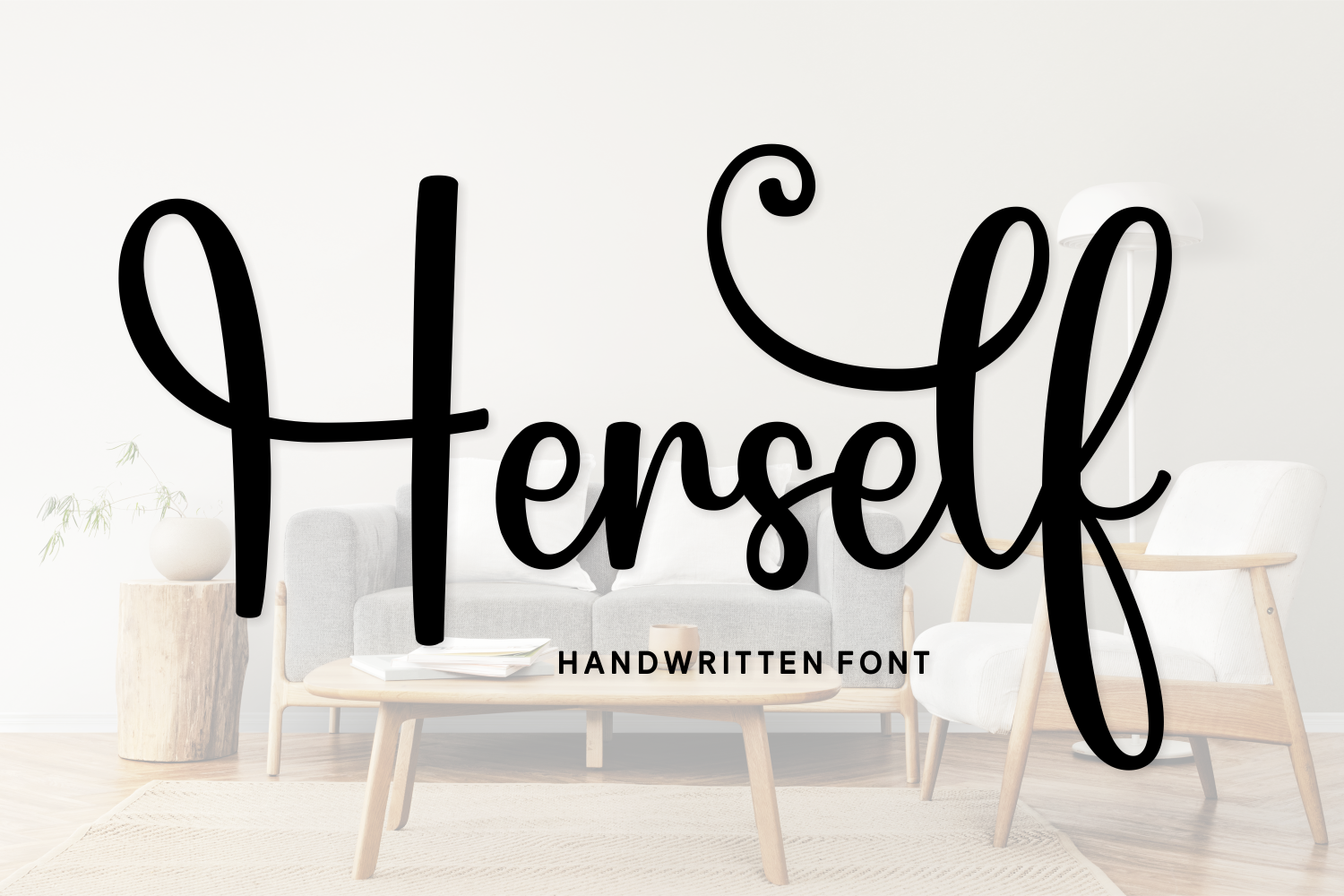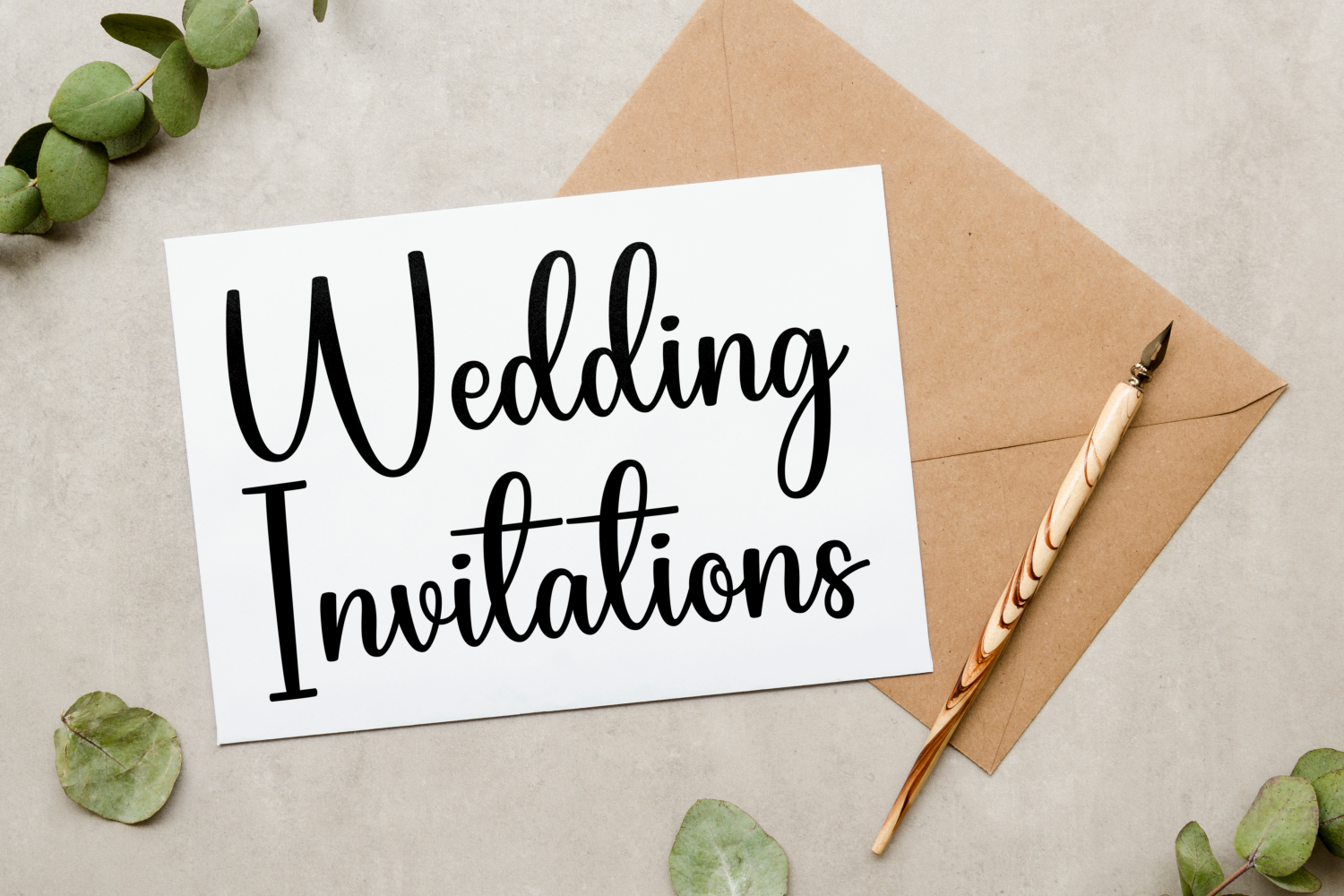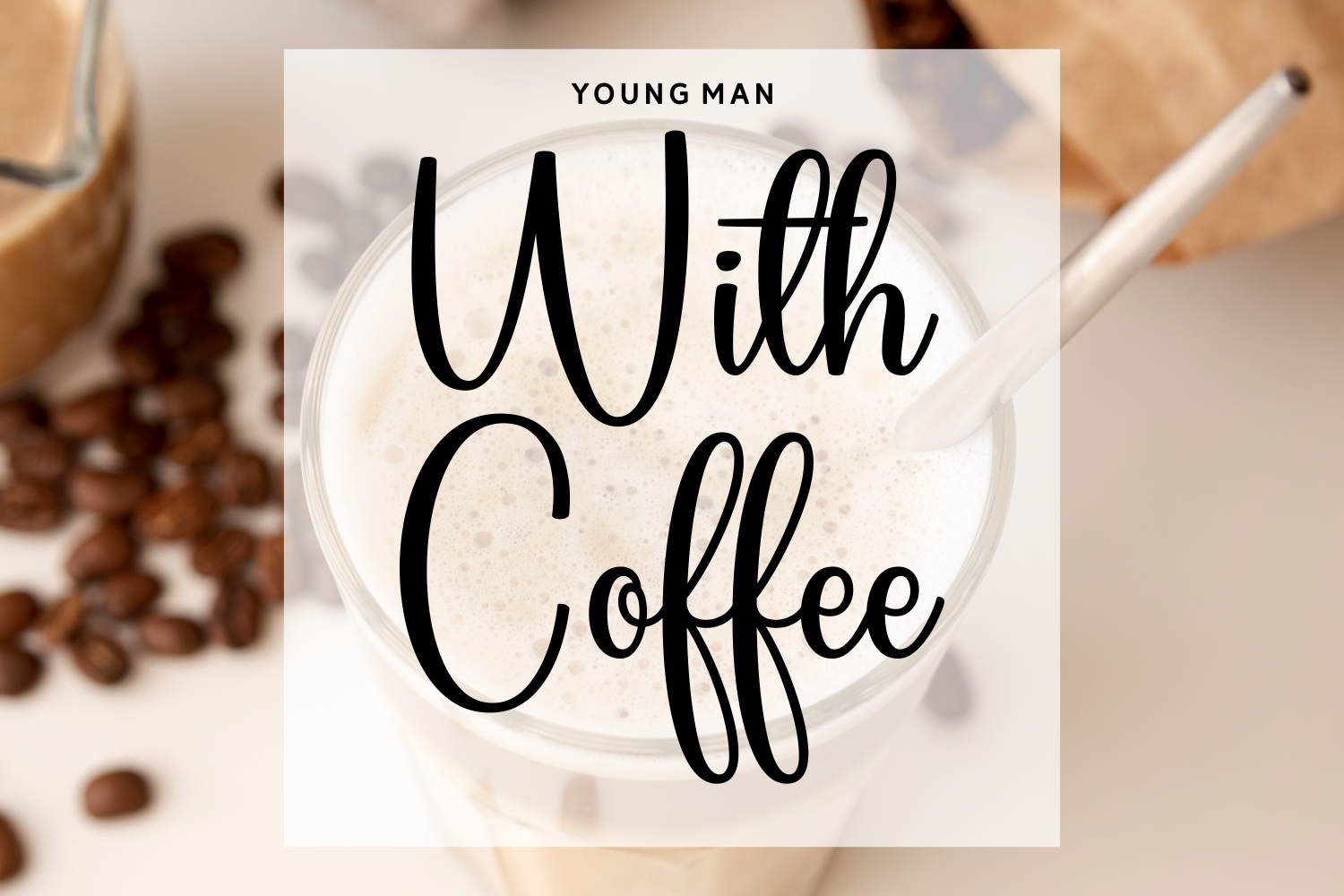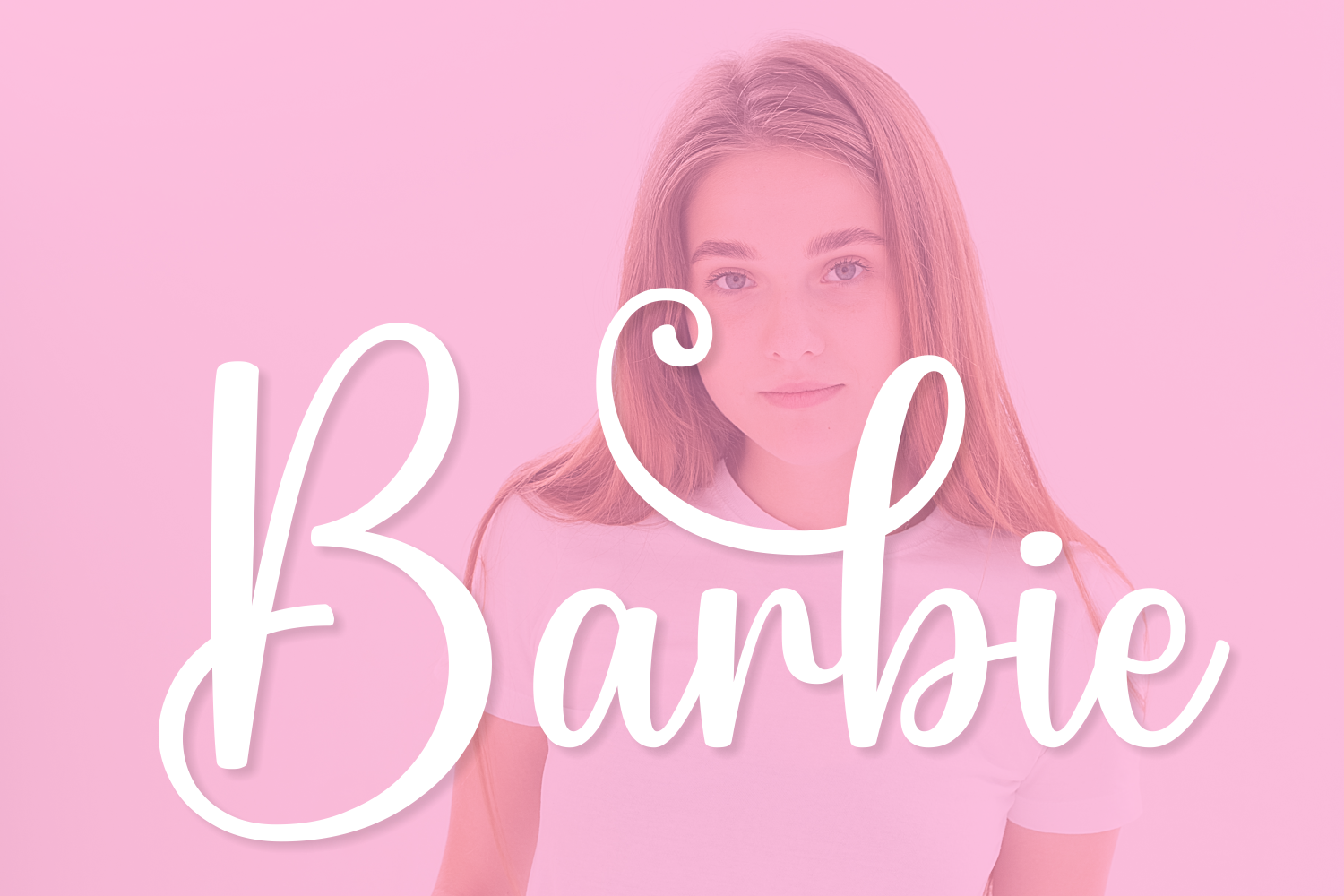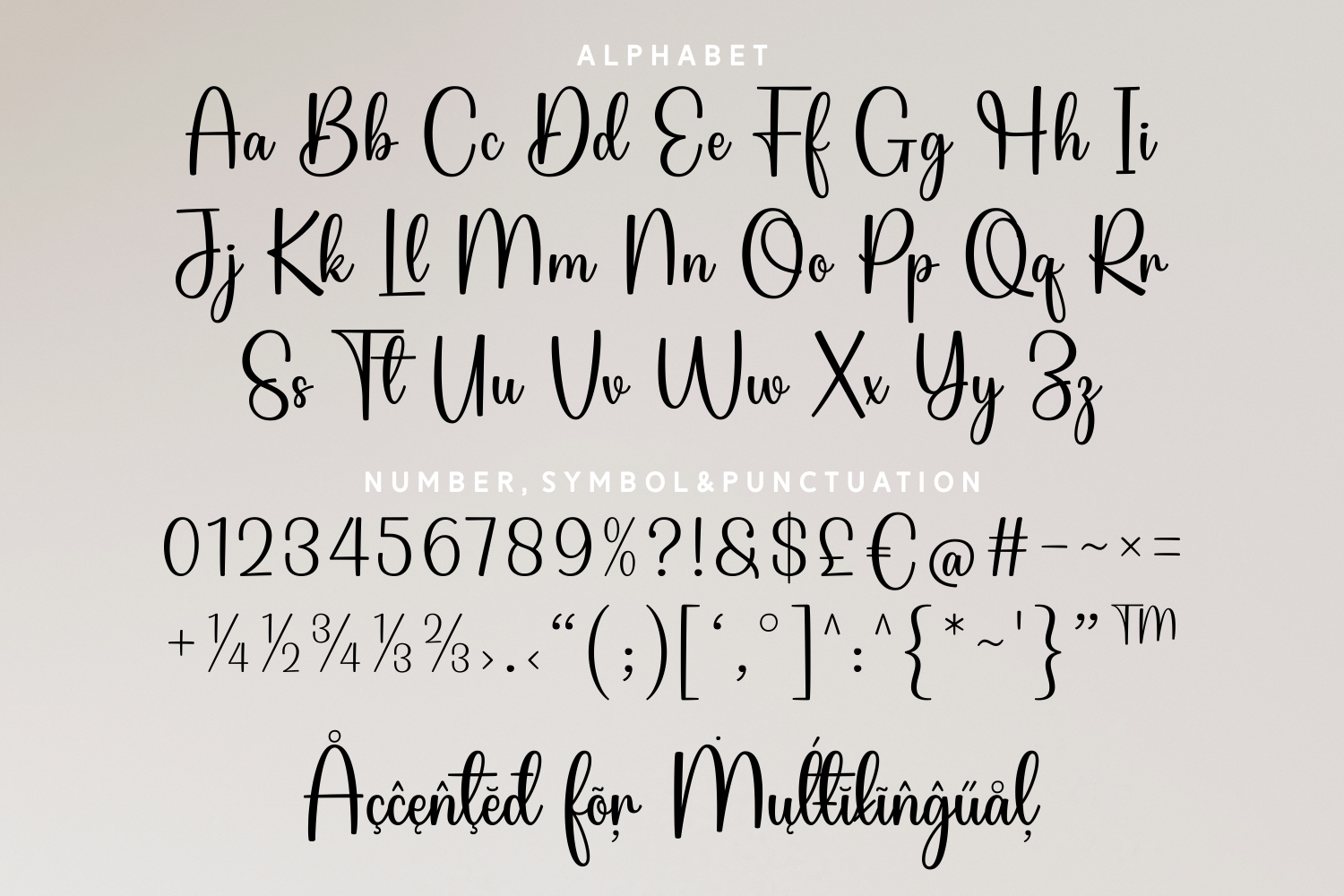
Herself is a confident and graceful handwritten font that combines soft loops with strong strokes. Its bold yet feminine charm makes it ideal for lifestyle branding, personal blogs, home decor prints, and signature logos. The perfect blend of elegance and warmth.